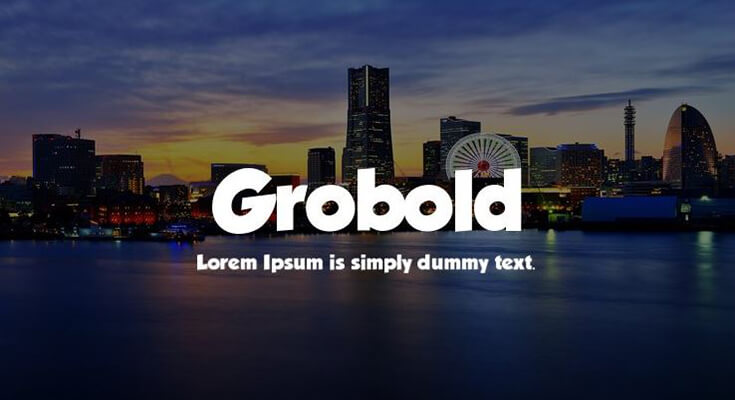
Grobold Font is a fun friendly design typeface that can be used for long texts and the letters are clean enough. Ideal for packaging and also for children’s books.
The font is very well known because of its Bold graceful Characters. You can manipulate this font for headings and titlings and so on.
The designer of this font is Guy Buhry. The bold look of its characters is great for display design projects.
It has 117 unique characters and 116 glyphs. It also has uppercase letters, lowercase letters, numbers and digits, symbols, some special characters, and great substitutions.
Also, you can design logos, wallpaper, magazine covers, business cards, art and illustrations, homeware design, product advertisements, product design, mug designs, product packaging, t-shirt design, brochures, banners, etc.